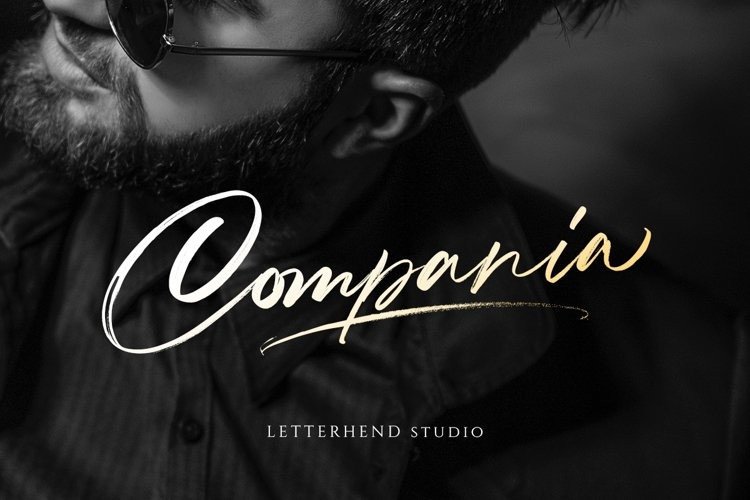
Compania Font
Compania Font is a natural and stylish brush typeface Inspired by elegant and branded stuffs make this font look classy and awesome in many ways to your latest project. This font perfectly made to be applied especially in logo, and the other various formal forms such as invitations, labels, logos, magazines, books, greeting / wedding cards, packaging, fashion, make up, stationery, novels, labels or any type of advertising purpose.